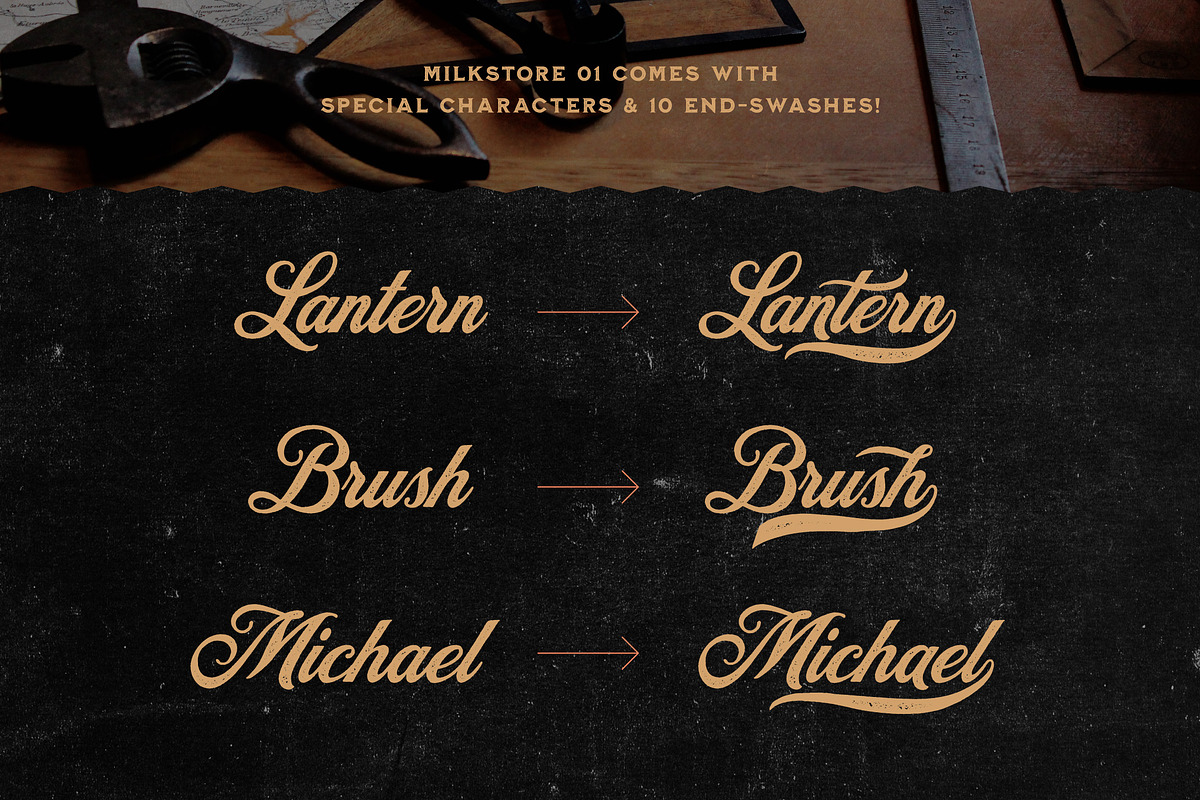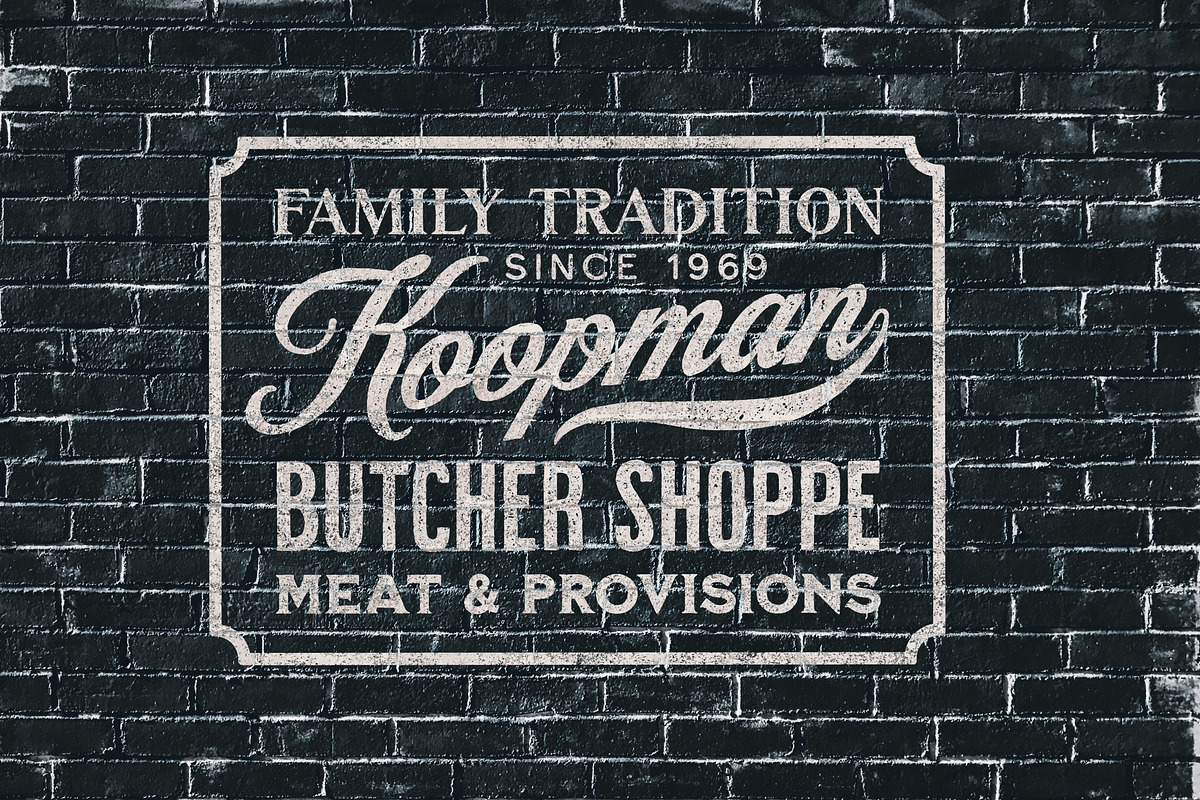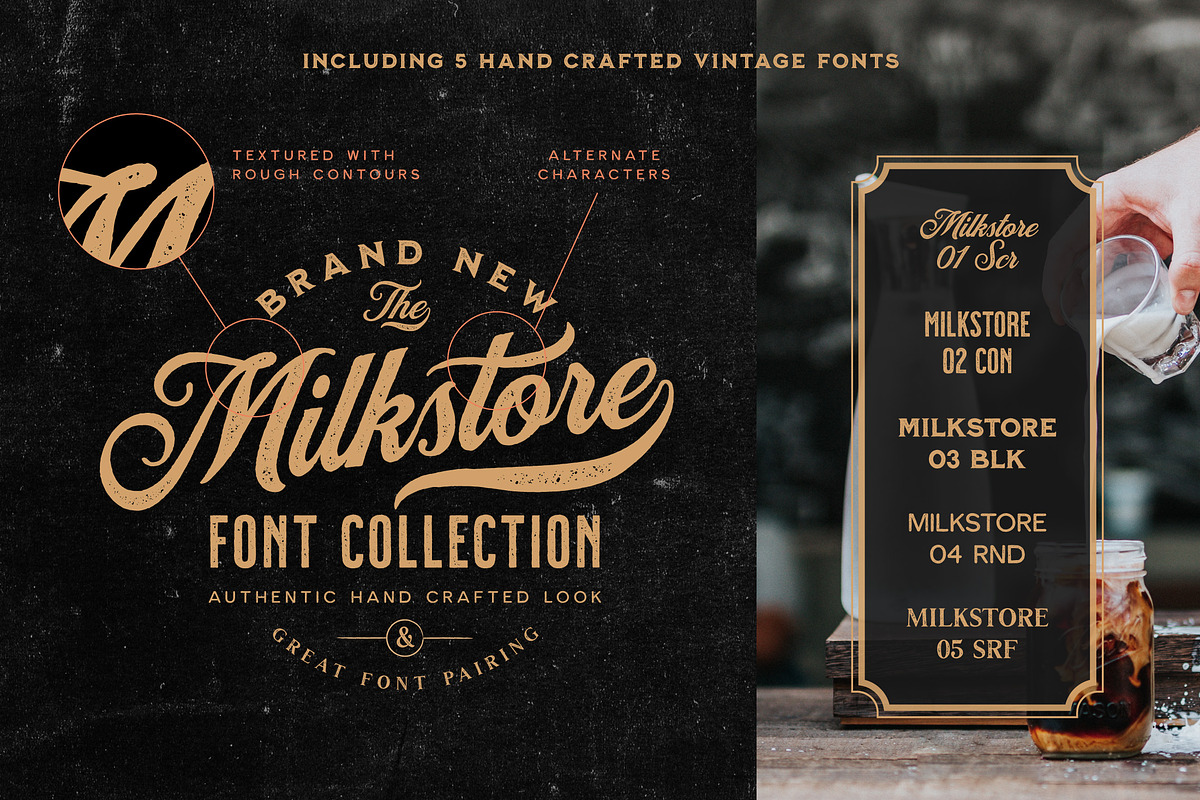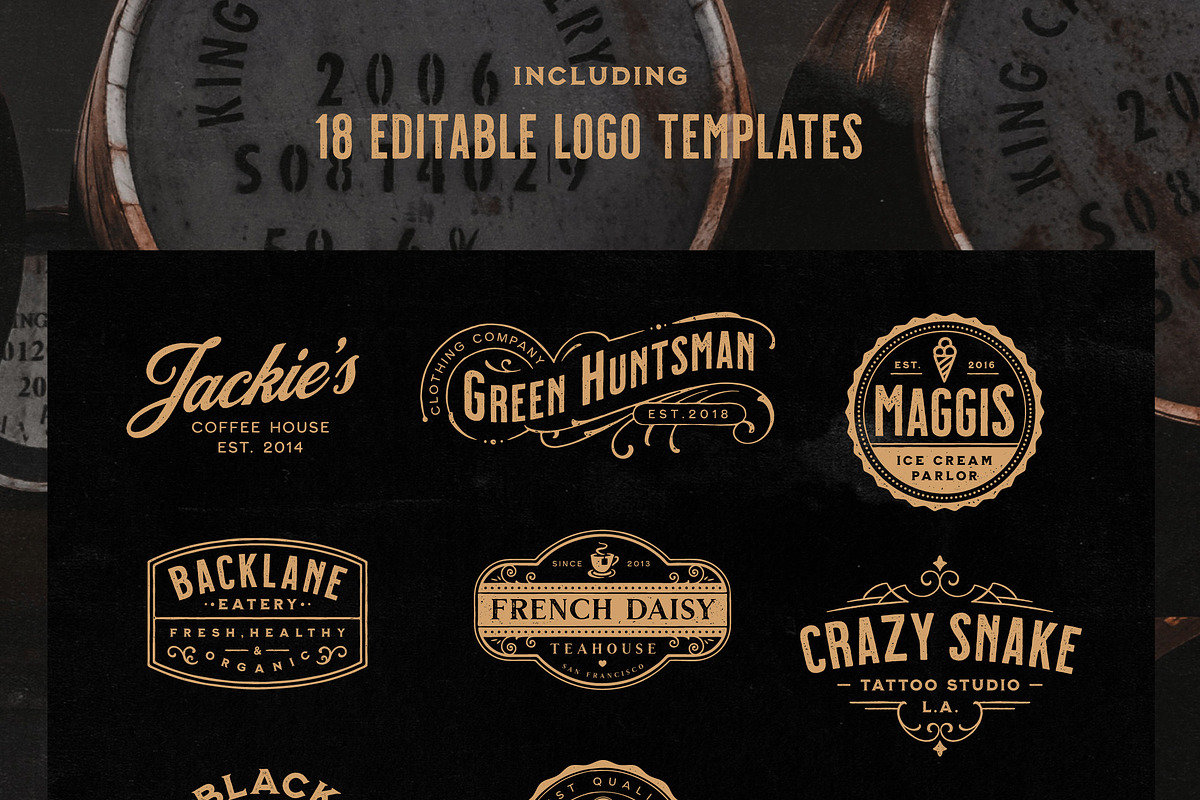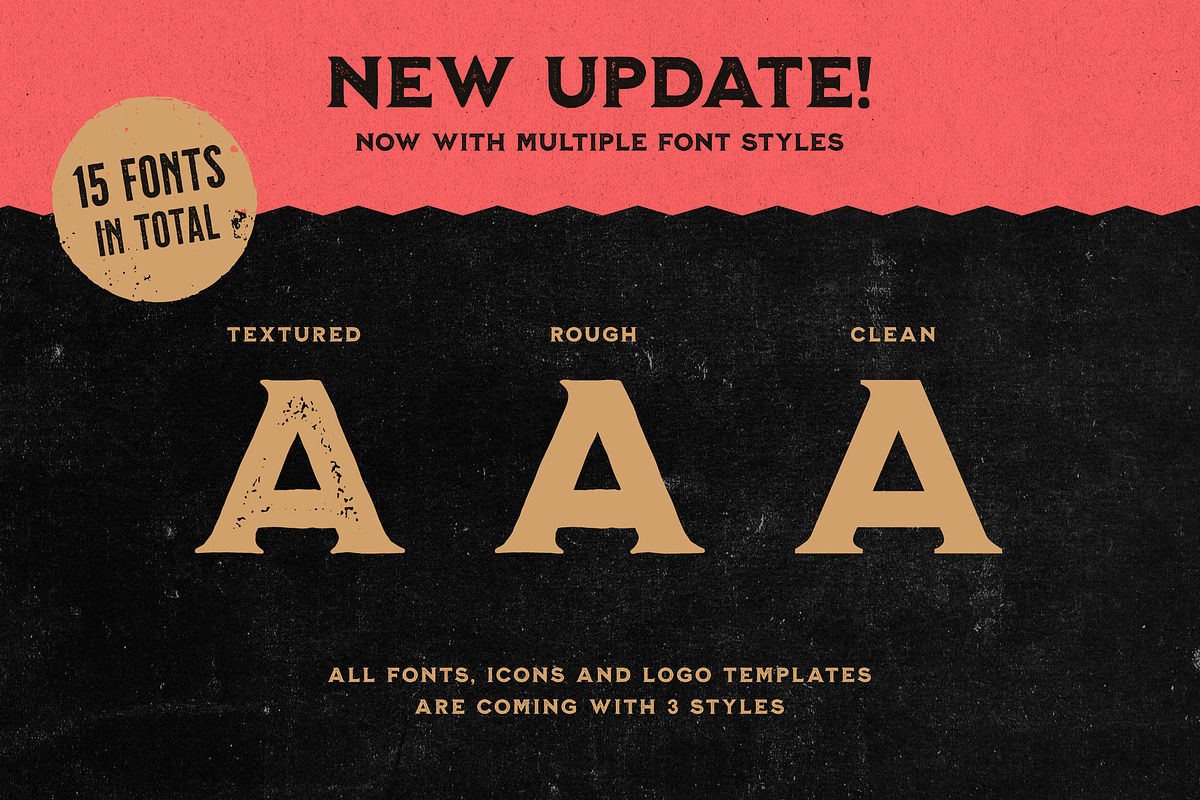
The Milkstore contains a set of 5 textured handcrafted fonts with an authentic hand-crafted look. The fonts are inspired by vintage brick wall murals and they work perfectly for logo, packaging, or title design with a hand-crafted vibe.
This makes logo & badge design easier than ever before! To complete the font collection we additionally include 12 textured backgrounds to present your designs in the right mood.